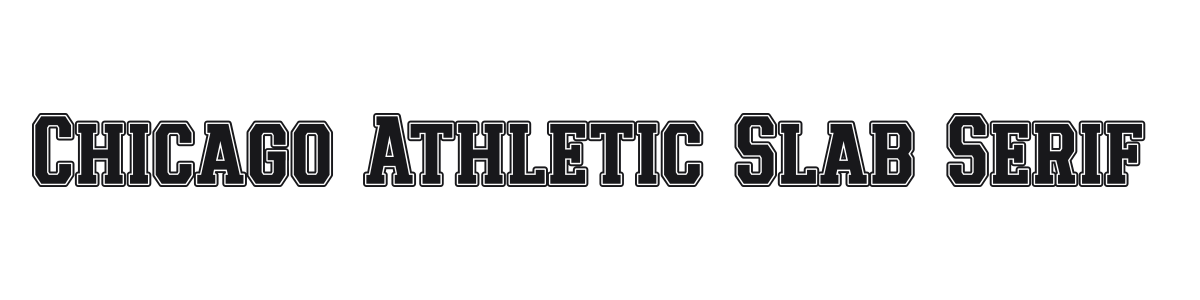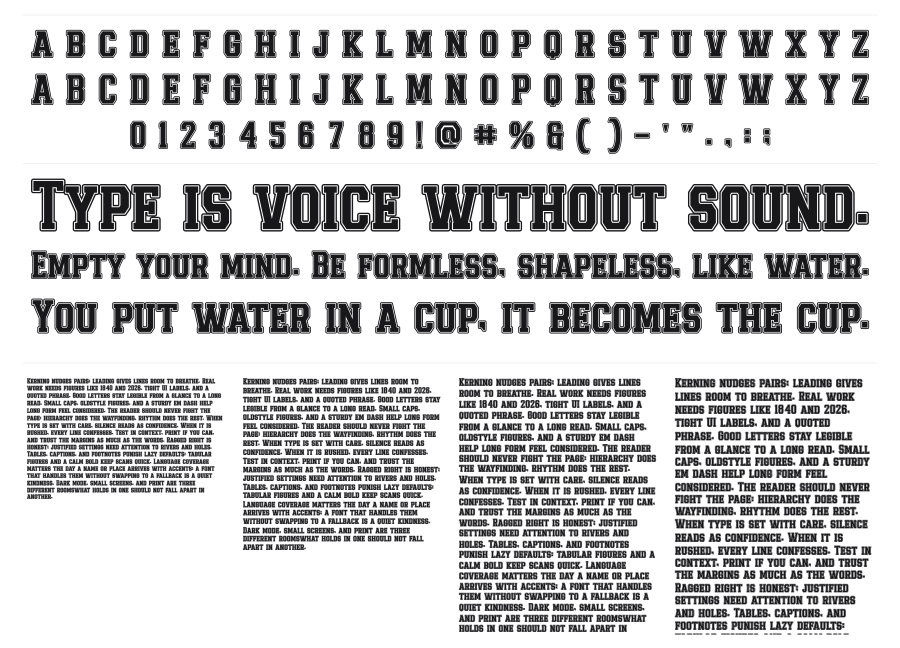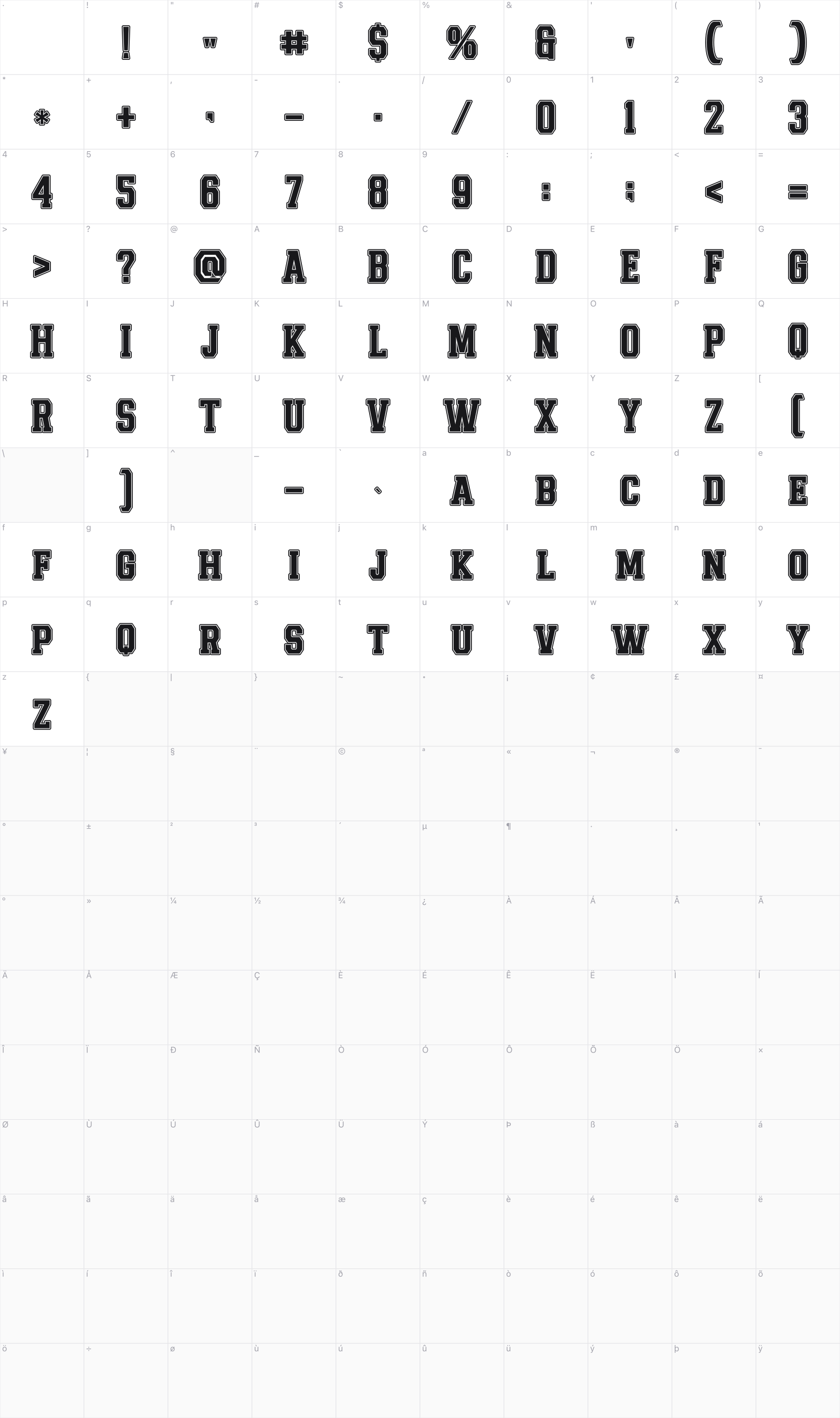
Chicago Athletic Slab Serif
Chicago Athletic Slab Serif is a bold condensed varsity-style slab with a built-in inline outline that gives it immediate depth and impact. The design draws directly from classic American collegiate and athletic lettering traditions, the kind you'd find on a 1950s letterman jacket or stadium signage. It carries weight and authority at large sizes.